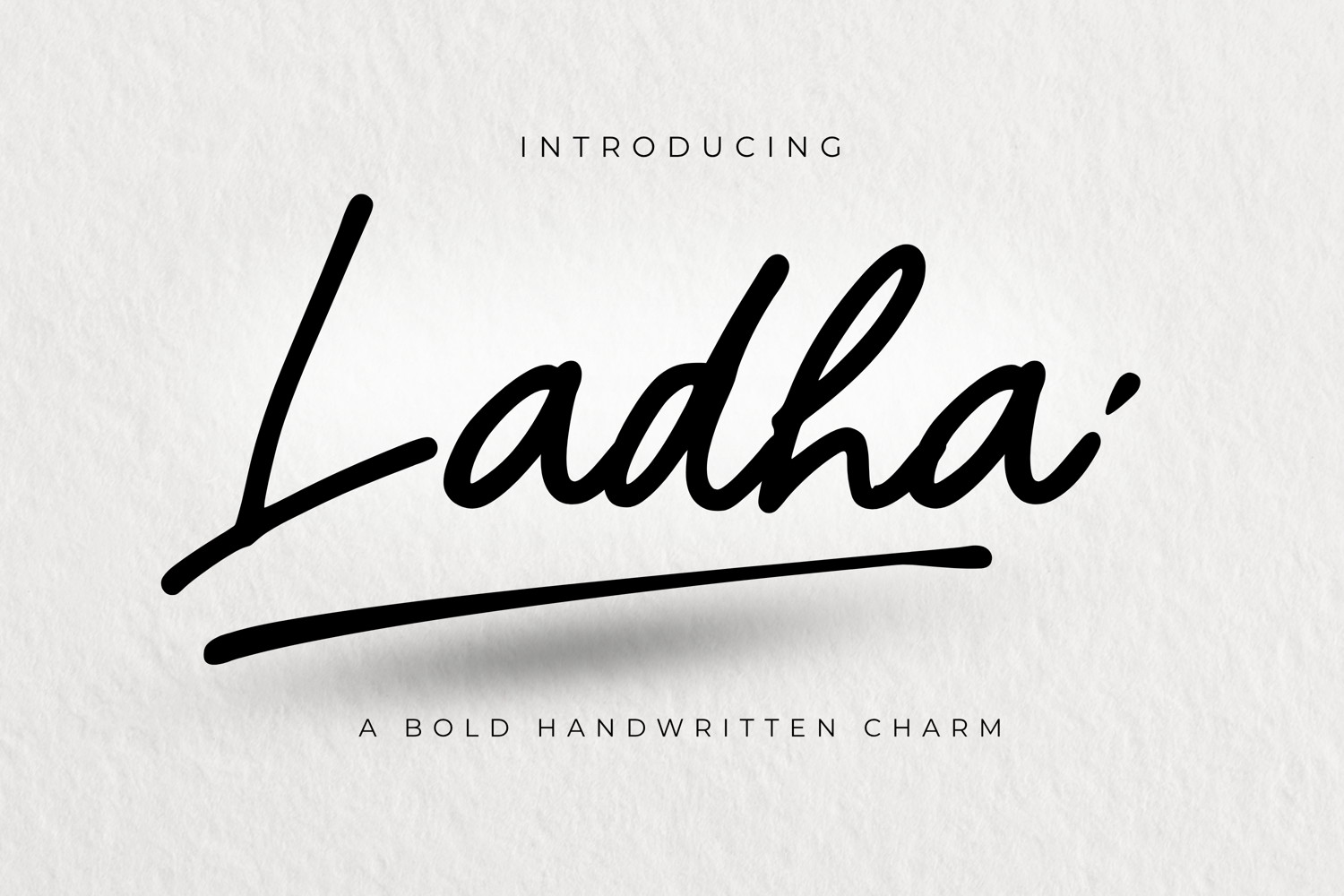
Ladha
Ladha! – A Bold and Spirited Handwritten Script
Say hello to Ladha! — a bold and lively handwritten script that speaks with confidence.
Crafted with energy and personality, Ladha! brings a spontaneous rhythm to your words. With its carefree strokes and expressive character, this font adds a fun, modern edge to your creative projects.
Perfect for bold logos, standout packaging, stylish quotes, apparel, social media graphics, and more — Ladha! is all about making your message feel real, fresh, and unforgettable.
The underlined style and exclamation point give it a punch of attitude — making it ideal for brands that want to stand out with a playful twist.
Ladha! is perfect for:
Branding • Quotes • Packaging • Posters • Apparel • Invitations • Instagram Posts • & more!